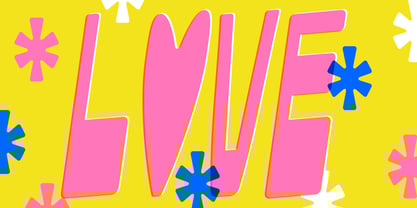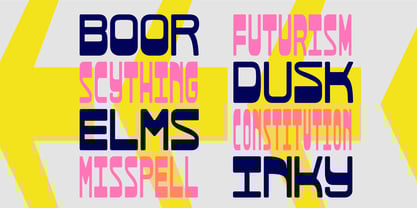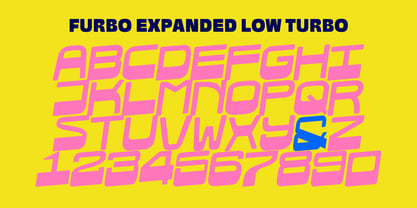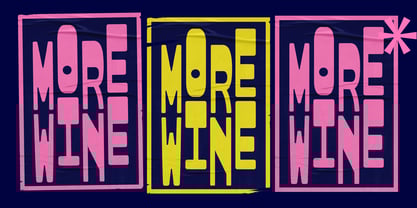
Furbo
by Resistenza
The Furbo Font Family was designed by Giuseppe Salerno, Paco González and published by Resistenza. Furbo contains 31 styles and family package options.
Introducing Furbo, a dynamic and versatile monospace inverted contrast variable font designed to empower your typographic explorations. With a comprehensive range of 30 weights, and three expressive axes—width, contrast, and turbo—Furbo offers unparalleled control over your text. Imagine the possibilities: tight, condensed headlines with maximum impact, or wide, airy body text with a unique, retro-futuristic feel. The contrast axis allows you to fine-tune the stroke weight, while the innovative "turbo" axis introduces a unique distortion effect, adding a touch of the unexpected to your designs.
Furbo is the ideal typeface for projects that demand a loud voice.